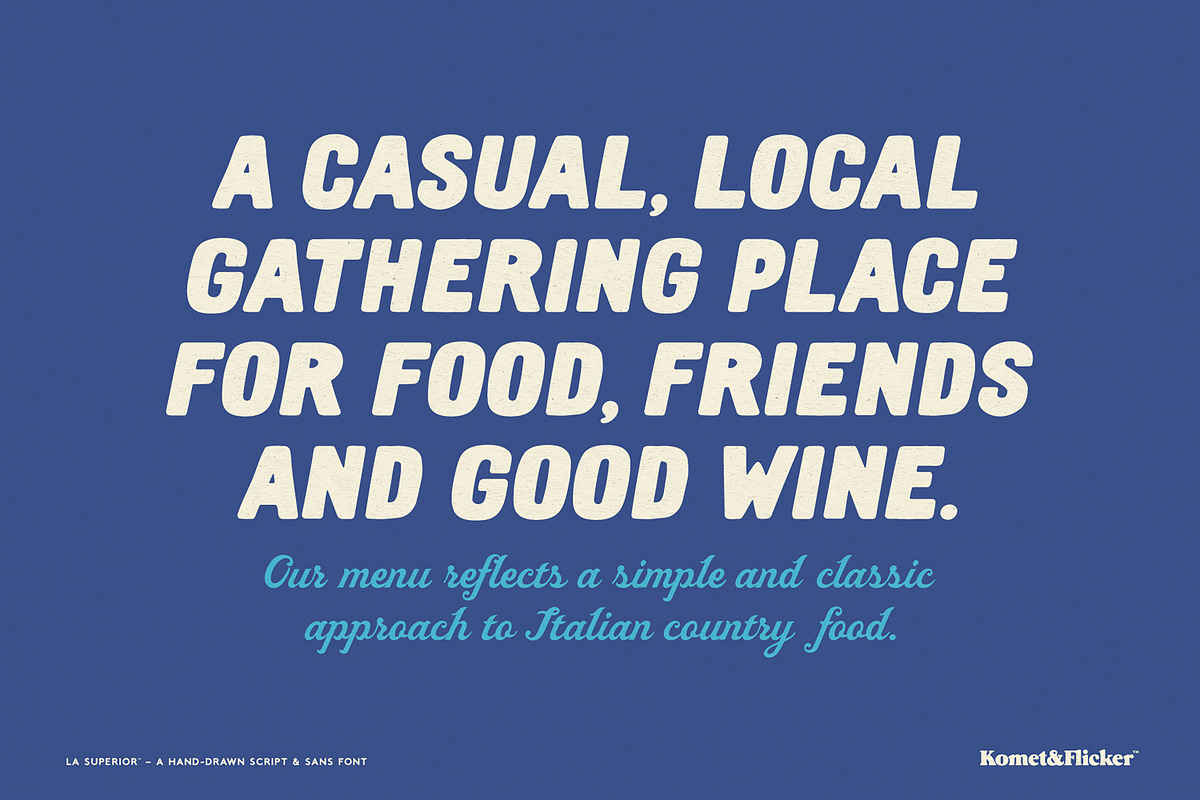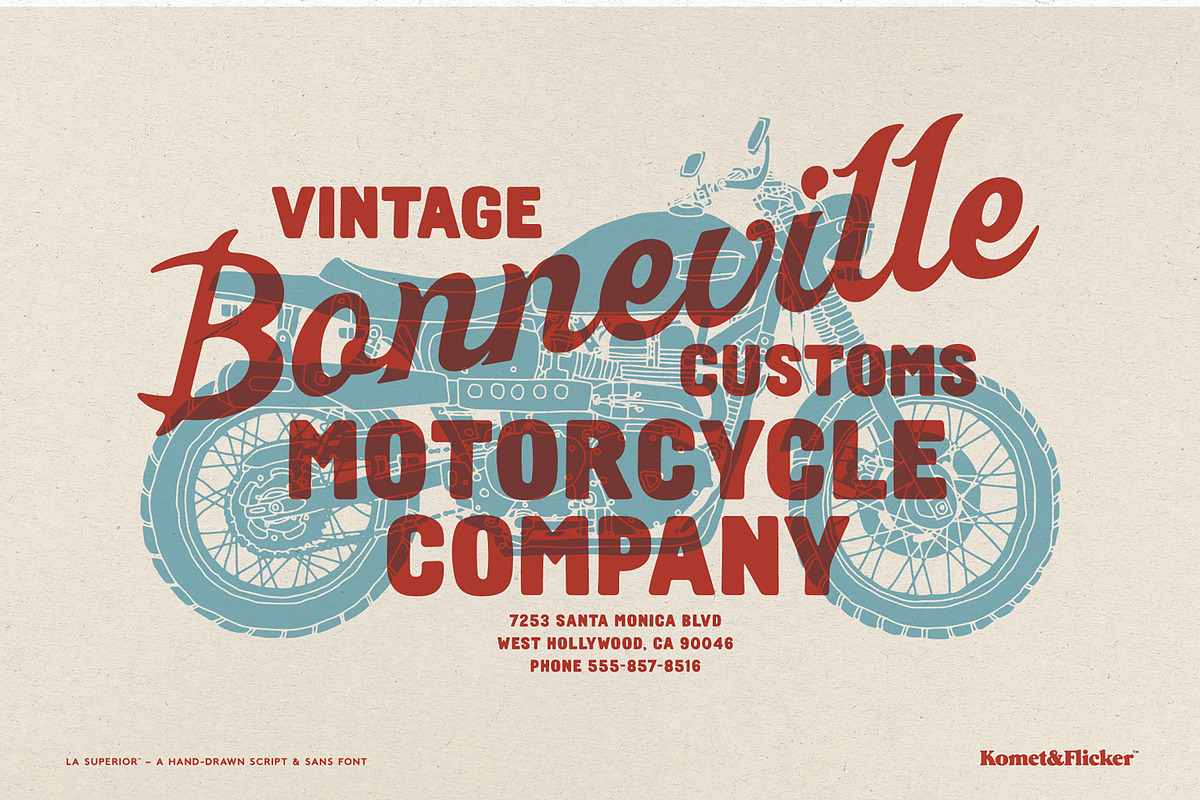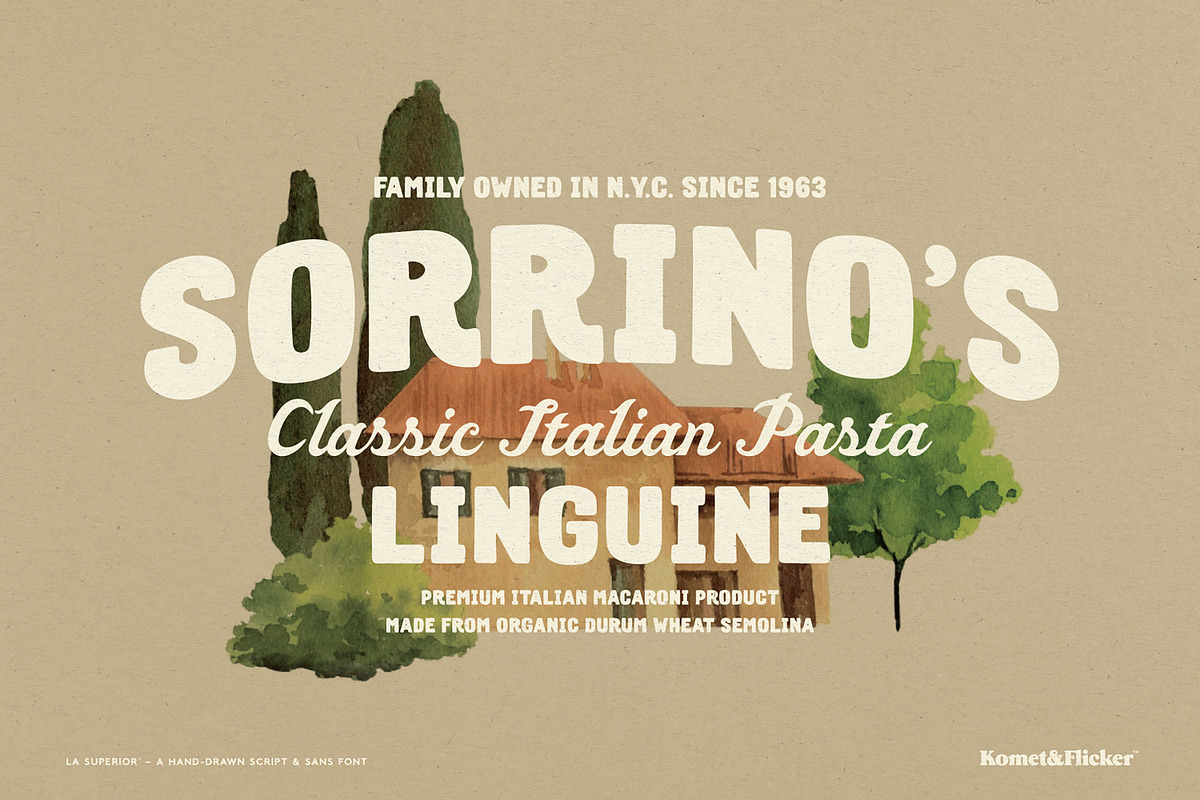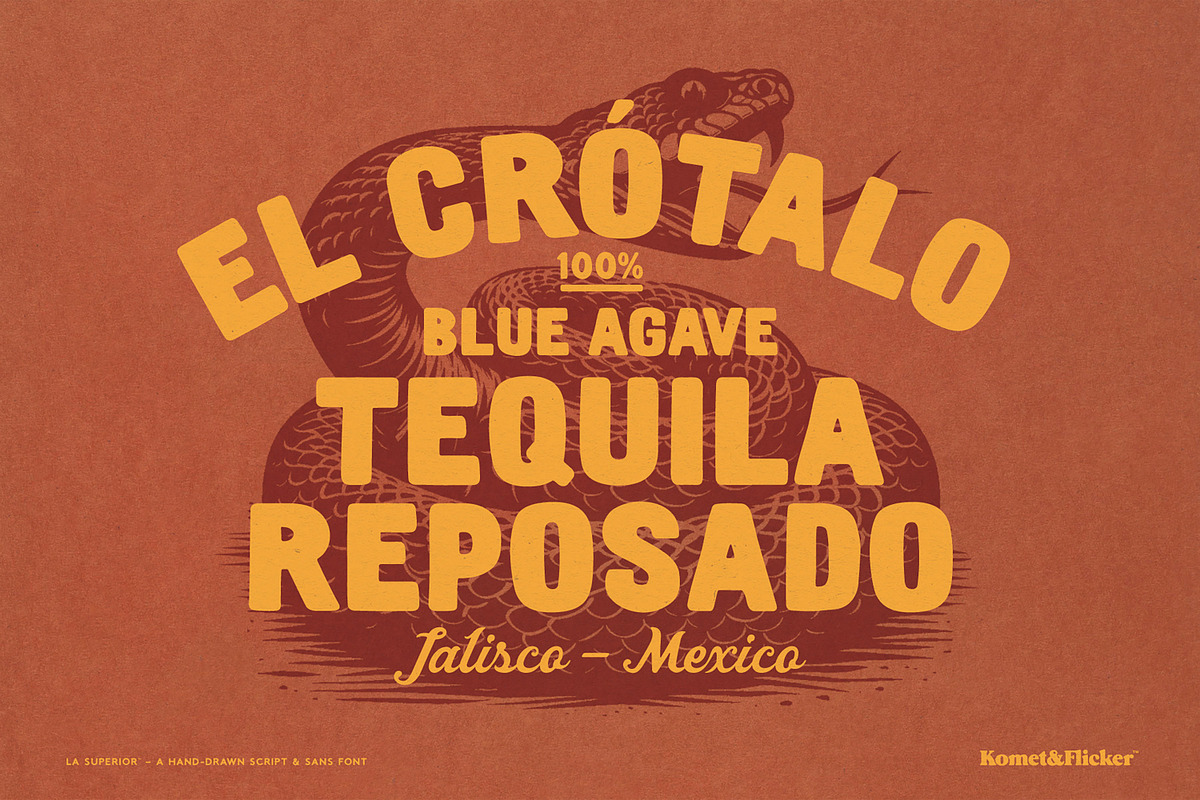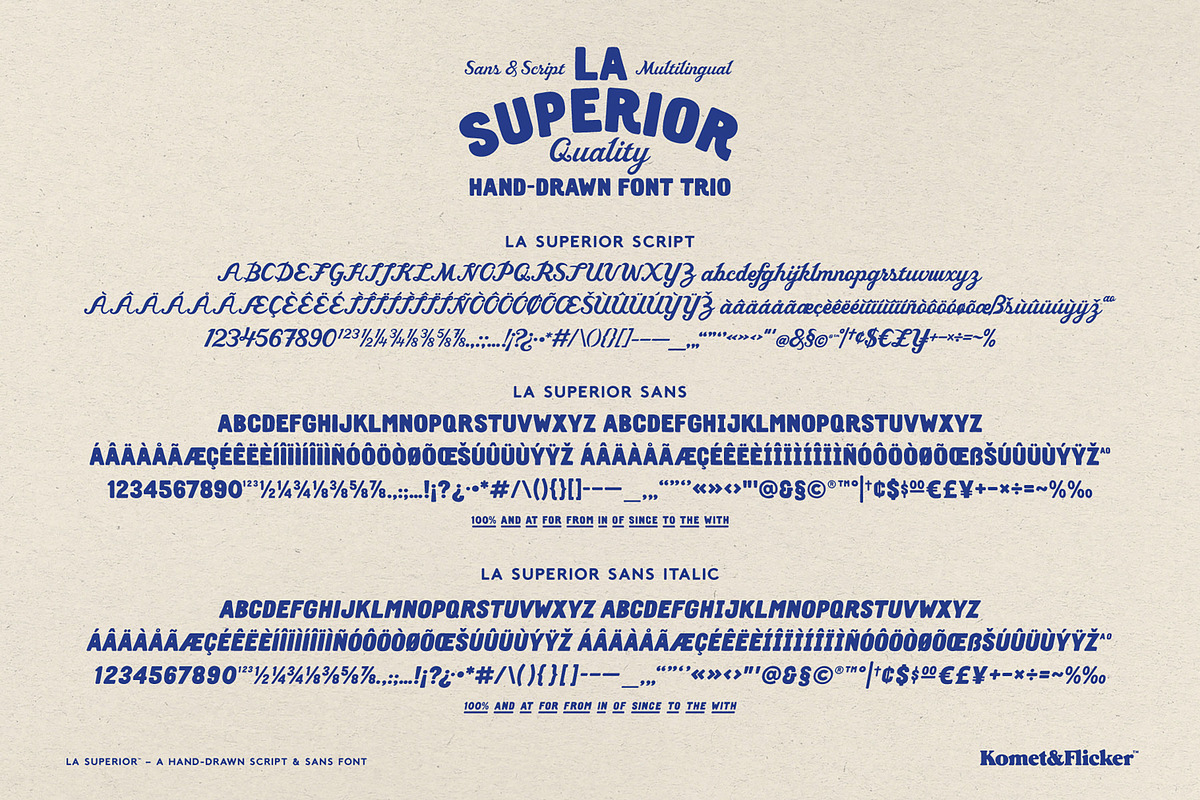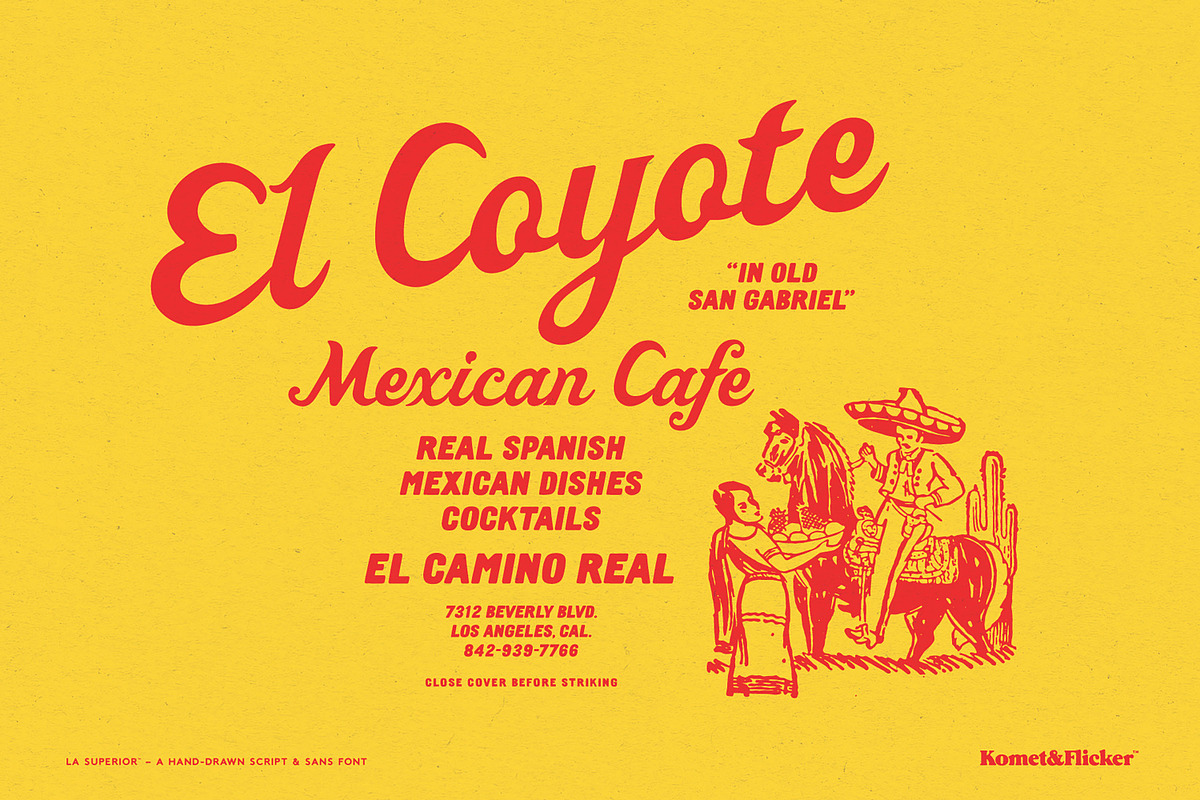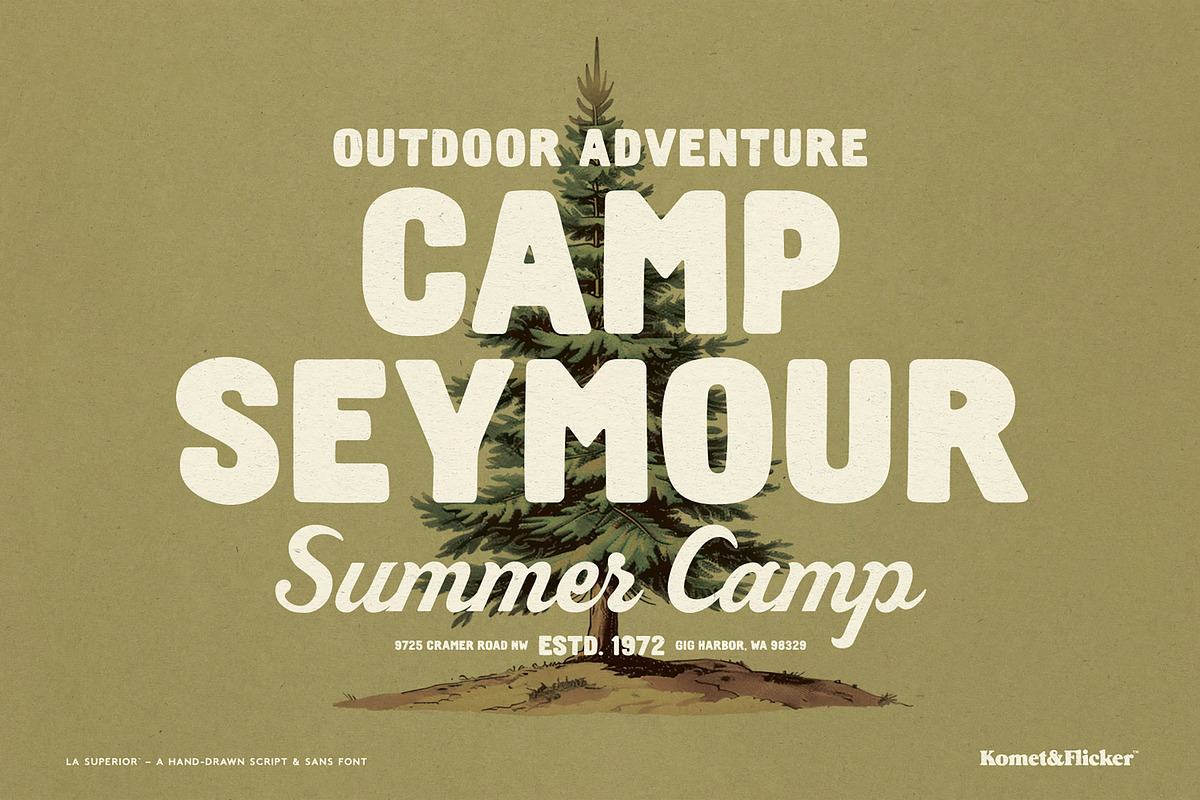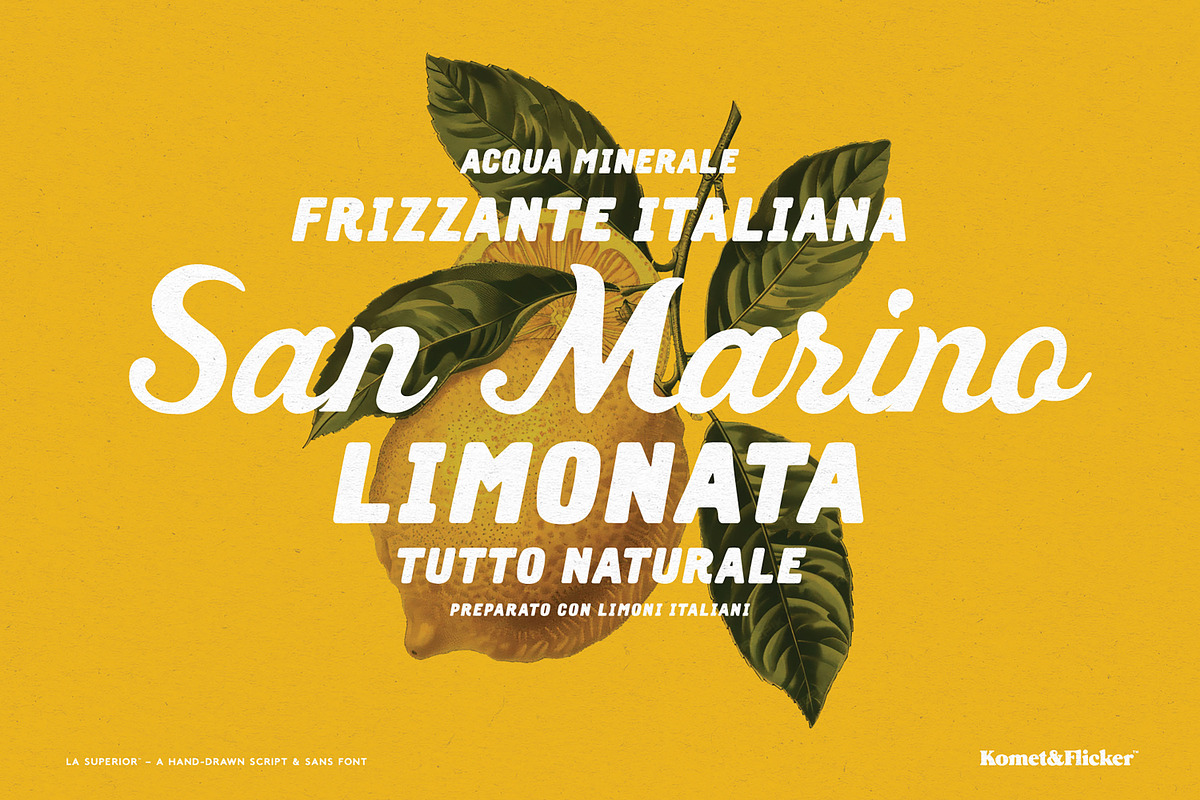
La Superior - A Hand Drawn Font Trio
Inspired by hand-painted Mexican taqueria wall lettering, La Superior channels the bold, imperfect beauty of sign painter type. This hand-drawn font trio is made up of an expressive script along with two sans versions; regular and italic, all designed to compliment each other. Each style carries the warmth and character of hand painted lettering, balancing expressiveness with everyday usability.
The sans versions also include a special set of 11 connecting words, such as AND, THE, WITH, allowing phrases to link naturally and flow like real sign work. These custom connectors add authenticity and rhythm, especially in headlines and short lines of text.
LA SUPERIOR SCRIPT INCLUDES
- Full A-Z upper and lowercase basic latin characters
- Select European specific characters
- Numbers, punctuation, and select symbols
- A set of pre-made common fractions
LA SUPERIOR SANS INCLUDES
- Full A-Z uppercase basic latin characters
- Select European specific characters
- Numbers, punctuation, and select symbols
- A set of pre-made common fractions
- Set of 11 custom connecting word glyphs